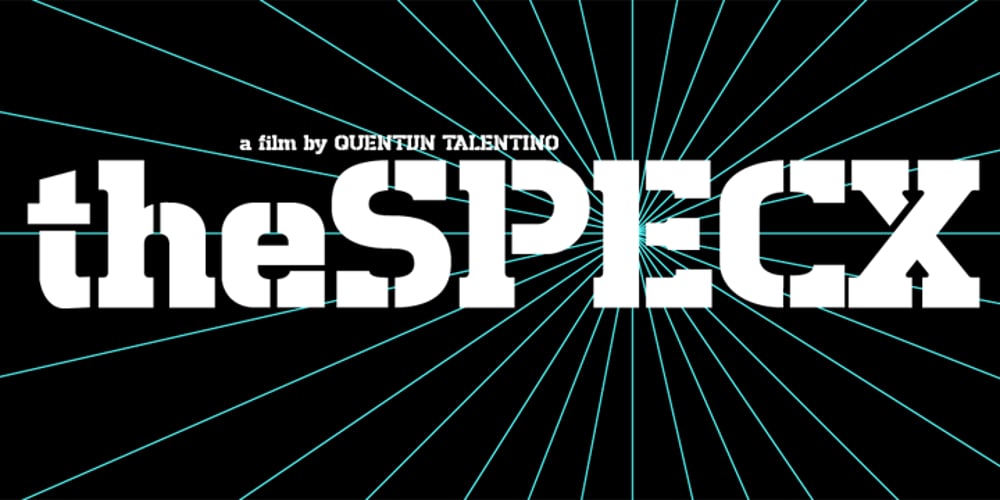
AT Move Specx Stncl Font Family was designed by André Toet, Jasper Nijssen and published by André Toet Design. AT Move Specx Stncl contains 1 styles and family package options. SPECX Stencil This is my #11/12 Font a slabserif typeface. In fact it’s a very, very basic and extreme strong typeface! We gave this new Font a special touch by adding an extra family-member: a stencil-version of the SPECX. My inspiration for the SPECX is based on the cover of a 1955 French School-Notebook. Concept/Art Direction/Design: André Toet © 2017